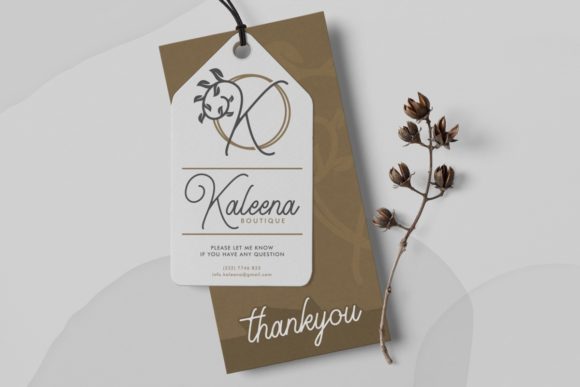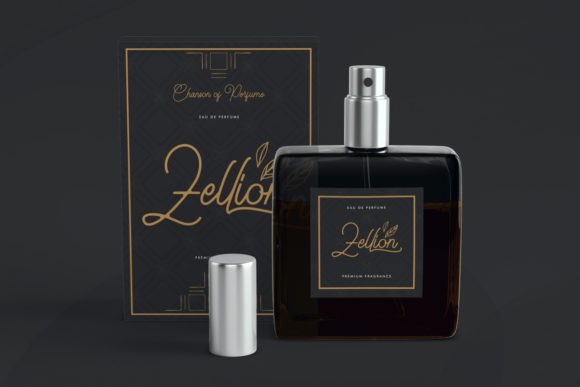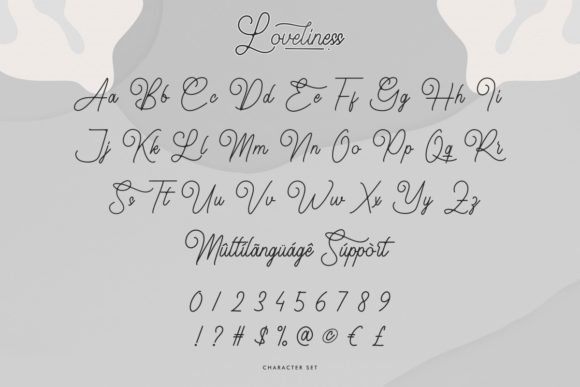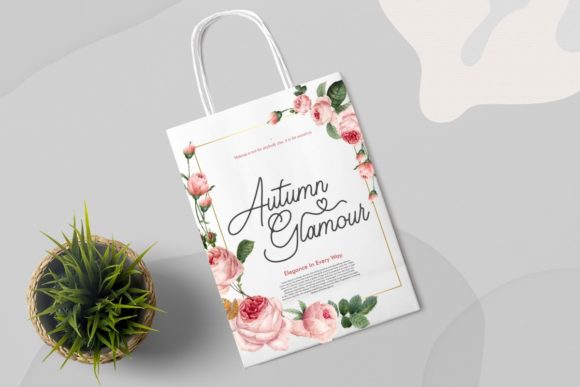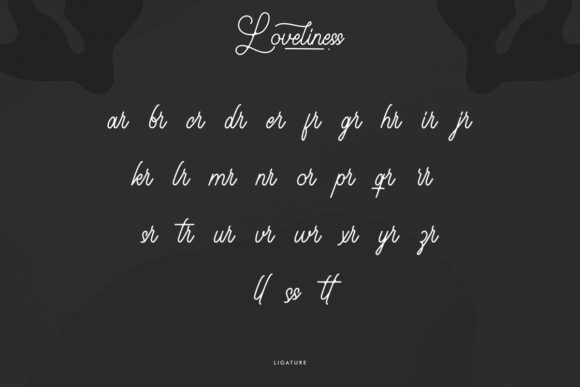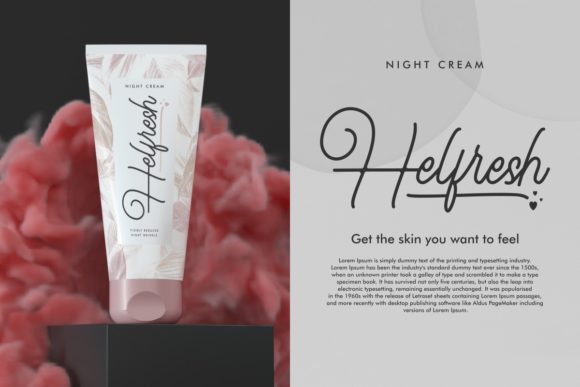
Introduction to Loveliness Font
Have you ever stared at a blank canvas, waiting for inspiration to strike? For designers, that moment of creative block can be daunting. But what if I told you that the perfect spark is just a font away? Introducing the Loveliness Font, a delightful script font that will bring your most creative ideas to life.
With its charming, playful characters that seem to dance along the baseline, the Loveliness Font is a game-changer for any design project. Whether you’re working on a wedding invitation, a children’s book, or a social media campaign, this font is sure to make your design stand out from the crowd.
- Features a unique, elegant design that is perfect for headings, titles, and other display typography.
- Designed to be highly legible at various font sizes, making it suitable for a range of creative projects.
Honest Review: Loveliness Font
As a designer, I’m always on the lookout for high-quality design resources that can elevate my creative projects. Recently, I stumbled upon the Loveliness Font, and I must say, it’s been a pleasant discovery. The Loveliness Font is a free download that boasts a beautiful, elegant script style that’s perfect for adding a touch of sophistication to any design.
Here are some things that work well with the Loveliness Font:
- ✨ Elegant script style that’s perfect for wedding invitations, quotes, and other creative projects
- ✨ High-quality design that looks great on both light and dark backgrounds
- ✨ Transparent background makes it easy to combine with other design elements
- ⚠️ Limited font sizes available, which may not be suitable for large-scale designs
- ⚠️ Not ideal for use in small text sizes due to its script style
Overall, I’m impressed with the Loveliness Font, and I think it’s a great addition to any designer’s toolkit. While it may have some limitations, its elegant style and high-quality design make it a valuable resource for any creative project.
Loveliness Font is a high-quality design resource perfect for creative projects. This free download offers a unique and elegant style that can elevate any design.
Loveliness Font is perfect for:
Branding and logos
Editorial and magazine designs
Any creative project that requires a touch of elegance and sophistication.